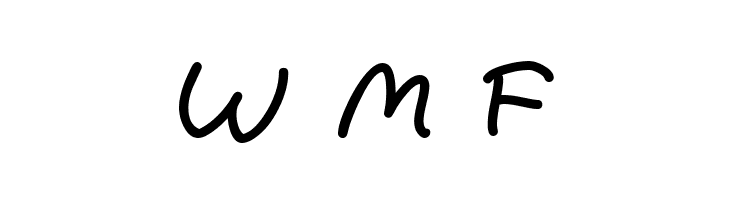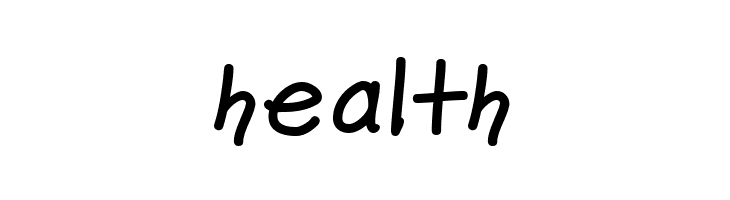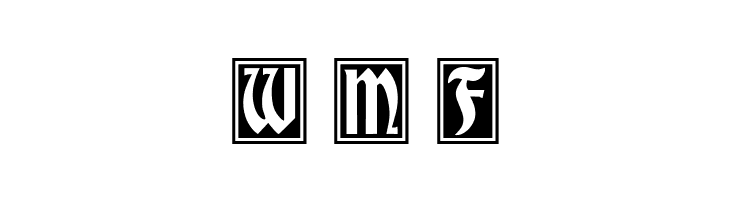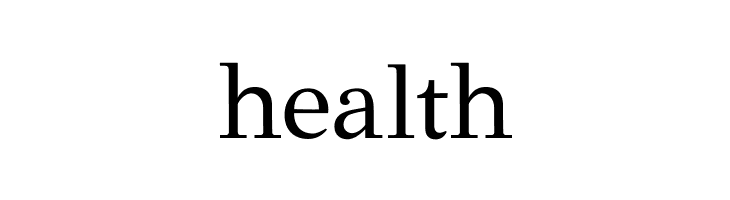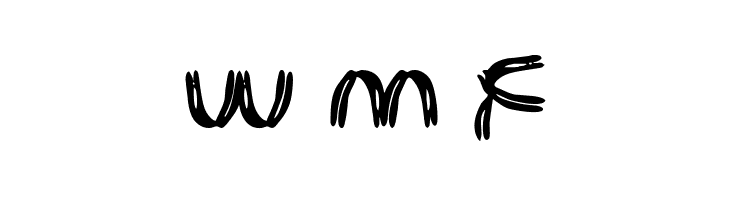
• Gemelli
A playful, casual handwritten font with smooth, flowing curves.
• GenericFont
A futuristic, angular font with a hollow, outlined design.
• Genome tf
A bold, hand-drawn font with a brush-like texture and dynamic style.
• genown_v01
• Genzsch Initials
An ornate and decorative font with intricate embellishments.
• Germania
A bold, classic Blackletter style font with intricate curves and sharp edges.
• Germania Versalien
A bold, blackletter-inspired font with high contrast and ornate details.
• GFS Didot Regular
A classic serif font with high contrast and refined elegance.
• GFS Neohellenic Bold
A bold, modern typeface with geometric shapes and consistent stroke width.
• GFS Neohellenic Bold Italic